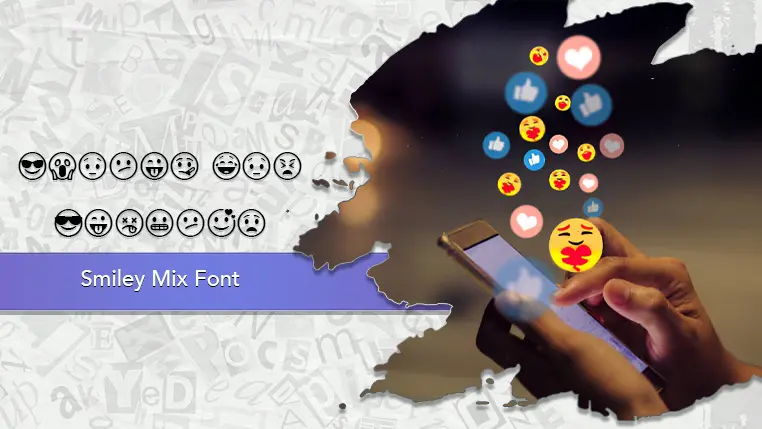
The Smiley Mix font family may be ideal for you if you enjoy working on an artistic design project. The lively, expressive look of this typeface, which was created by Woodcutter, makes it ideal for Perfect for adding a fun, expressive, and engaging element to social media posts, stories, and advertisements. You can use them as emojis, reaction indicators, or just decorative elements. While standard emoji sets are widely available, this font offers a unique, stylized set of smileys that can be used in messaging apps or custom interfaces for a distinct visual appeal. Smiley Mix visually represent moods, opinions, or reactions in a fun and easily digestible way within an infographic. and other light-hearted visual projects.
Regular are the one primary font styles of the Smiley Mix font family. You may build dynamic, visually appealing text layouts with the distinct flair that each style offers. With crisp, readable lines and a relaxed tone.